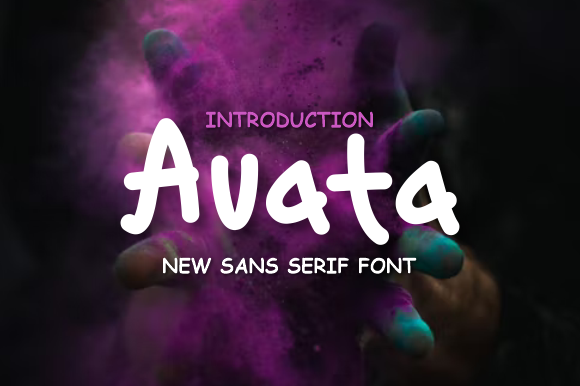
Unleash Your Creativity with the Avata Font
Have you ever stared at a blank canvas, waiting for inspiration to strike? For designers, those moments of creative block can be frustrating. But what if you had the perfect tool to spark your imagination? The Avata Font is here to revolutionize your design process, offering a unique Sans Serif style with a carved flair that’s perfect for a wide range of applications.
This versatile font is designed to make a statement, whether you’re creating quotes, t-shirt designs, flyers, or even logos for your YouTube channel. With its PUA encoding, you’ll have access to a vast array of glyphs and ligatures, giving you endless possibilities to express your creativity. As a designer, you know how valuable a versatile font like Avata Font can be – it’s the perfect addition to your toolkit.
- Unique Characteristics: Avata Font features a unique blend of modern and traditional design elements, making it stand out in a crowded font market.
Avata Font Review
Overall, I found the Avata font to be an interesting choice for designers looking for something unique and modern. Here’s what I think works well:
- ✨ Unique design: The Avata font boasts a one-of-a-kind aesthetic that sets it apart from more traditional fonts.
- ✨ Versatility: This font is suitable for a wide range of projects, from logos to digital products, and even print materials.
- ✨ Good legibility: The font is easy to read, even at smaller font sizes, making it a great choice for digital applications.
- ⚠️ Limited character set: The Avata font may not have as extensive a character set as some other fonts, which could be a drawback for designers working with non-Latin scripts.
- ⚠️ Not ideal for body text: While the font is great for headings and titles, it may not be the best choice for body text due to its unique style and potential readability issues.
In conclusion, the Avata font is a solid choice for designers who want to add some visual interest to their projects. While it may have some limitations, its unique design and versatility make it a great option for the right applications.
Getting the Most Out of Avata Font
Avata Font is a versatile font suitable for a wide range of designs. Tips for getting the most out of it include:
- Experiment with different font sizes and styles
- Combine Avata Font with other fonts for a unique look
- Use Avata Font for titles and headings to create visual hierarchy
Avata Font is commonly used for:
- Graphic design
- Logo design
- Typography-based art
- Business branding
Comparison to Avata Font: Open Sans is more legible and has a more neutral tone compared to Avata Font’s bold and futuristic style.